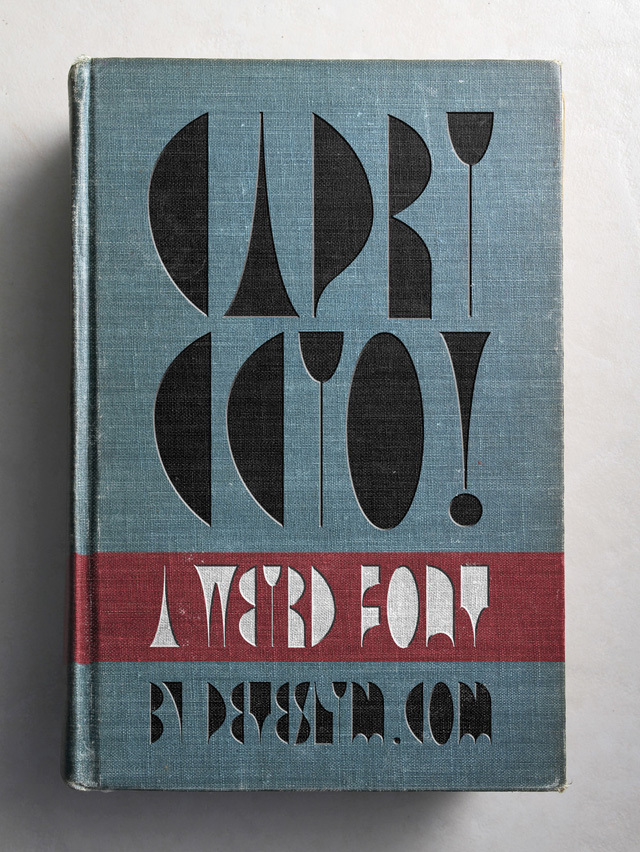
Capriccio by Pedro Delgado Maqueda of Peteslim.com is a free decorative display font with extreme shifts between broad curves and hairline strokes. Its tall, compressed letters combine sharp geometry with swollen, almost sculptural shapes.
The theatrical silhouette suits fashion branding and experimental music posters equally well. It also brings an eccentric Art Deco note to magazine covers and event graphics. Posters are its strongest setting, since the repeating curves turn a title into a striking pattern.